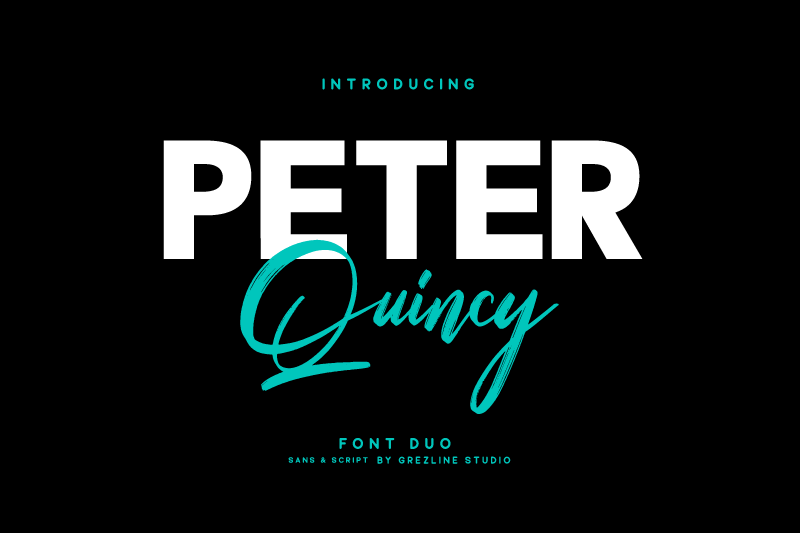
Preview and download Peter Quincy Sans Font. Created by Akhmad Reza Fauzi in Basic Sans serif styles with Free for personal use license.
This font is for PERSONAL USE ONLY! Peter Quincy is a unique font duo with sans and hand-drawn script styles. It is perfectly suited for a wide variety of projects! --------------------------------------------------------- Any DONATION will be appreciated https://www.paypal.me/akhmadrezafauzi Purchase COMMERCIAL LICENSE: https://grezlinestudio.com/product/peter-quincy-font-duo/ Visit my store for special price and discount : https://grezlinestudio.com If you have any questions, feel free to contact me : grezline.studio@gmail.com |